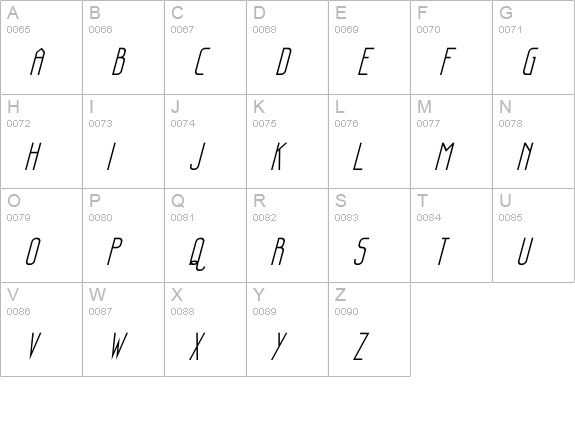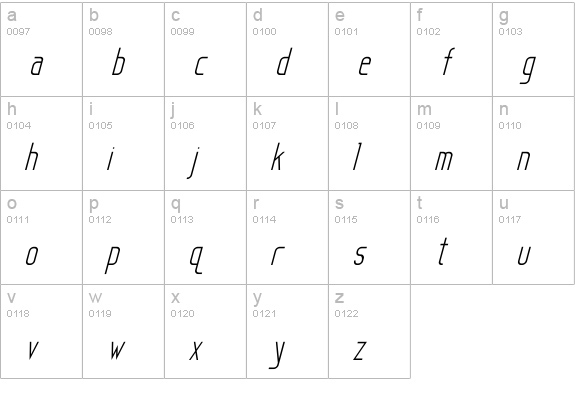
Sanity Italic is a distinctive, italic variant in the Sanity typeface family \xE2\x80\x94 well suited to design and typography projects.
Sanity Italic is a stunning font that combines elegance and modernity, making it perfect for a wide range of design projects. Its sleek and sophisticated letterforms are beautifully crafted, with a slight slant that adds a touch of dynamism and flair to any text. This font is a true gem that effortlessly captures attention and leaves a lasting impression. With its clean lines and graceful curves, Sanity Italic exudes a sense of refinement and professionalism. Whether you're creating logos, branding materials, invitations, or any other design work, this font will elevate your project to a whole new level of sophistication. What makes Sanity Italic even more enticing is that it is free! That's right, this remarkable font is freely available to download at FontsMarket.com. Now you can enjoy the beauty and versatility of Sanity Italic without any cost. It's an opportunity not to be missed for designers, creatives, and anyone who appreciates high-quality typography. Say goodbye to boring and mundane fonts, and embrace the elegance and uniqueness of Sanity Italic. Download it now from FontsMarket.com and let your creativity soar. With Sanity Italic, your designs will stand out from the crowd and make a lasting impact.